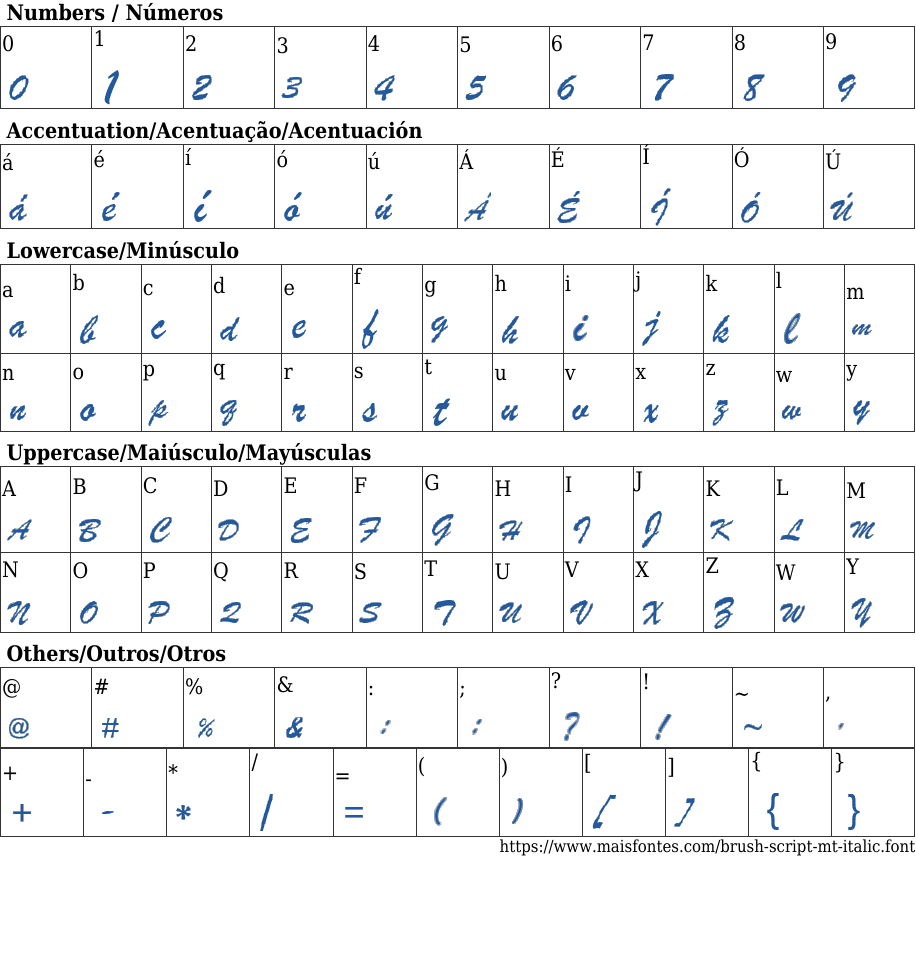
Brush Script Mt Italic Font . Brush script mt italic font. Embed brush script mt italic font to embed your selected fonts into a webpage, copy this code into the of your html document <link. Installable on pc, mac, linux, ios, and android platforms. Download brush script mt italictruetype font. Brush script mt font brush developed by robert e. Download 186,286 free fonts at ufonts.com. The brush script mt italic font has a script typography and is great for elegant invitation art. Make the art more fun because. The author of newspaper font inknew that is free for both personal and commercial uses. A script typeface with 1 style, available from adobe fonts for sync and web. Discover the free brush script mt italic font at free font download ! Brush script mt italic is a charming and elegant font that adds a touch of sophistication to any design project. Explore brush script designed by robert e.
Brush script mt italic is a charming and elegant font that adds a touch of sophistication to any design project. Download 186,286 free fonts at ufonts.com. Download brush script mt italictruetype font. Embed brush script mt italic font to embed your selected fonts into a webpage, copy this code into the of your html document <link. The author of newspaper font inknew that is free for both personal and commercial uses. Make the art more fun because. Brush script mt font brush developed by robert e. Installable on pc, mac, linux, ios, and android platforms. Explore brush script designed by robert e. Brush script mt italic font.
Brush Script Mt Italic Font Make the art more fun because. Explore brush script designed by robert e. Installable on pc, mac, linux, ios, and android platforms. Make the art more fun because. A script typeface with 1 style, available from adobe fonts for sync and web. The brush script mt italic font has a script typography and is great for elegant invitation art. Brush script mt italic font. Download brush script mt italictruetype font. Embed brush script mt italic font to embed your selected fonts into a webpage, copy this code into the of your html document <link. The author of newspaper font inknew that is free for both personal and commercial uses. Brush script mt italic is a charming and elegant font that adds a touch of sophistication to any design project. Discover the free brush script mt italic font at free font download ! Brush script mt font brush developed by robert e. Download 186,286 free fonts at ufonts.com.
Font Brush Script Mt Italic at frankenewsom blog Brush Script Mt Italic Font Explore brush script designed by robert e. Installable on pc, mac, linux, ios, and android platforms. A script typeface with 1 style, available from adobe fonts for sync and web. Download brush script mt italictruetype font. Brush script mt italic is a charming and elegant font that adds a touch of sophistication to any design project. Brush script mt italic. Brush Script Mt Italic Font.
Brush Script Handmade font (227952) Script Font Bundles Brush Script Mt Italic Font The brush script mt italic font has a script typography and is great for elegant invitation art. Make the art more fun because. Brush script mt italic font. Discover the free brush script mt italic font at free font download ! A script typeface with 1 style, available from adobe fonts for sync and web. Brush script mt font brush. Brush Script Mt Italic Font.
Brush Script MT [Rus by me] Italic шрифт Brush Script Mt Italic Font Download 186,286 free fonts at ufonts.com. Brush script mt italic is a charming and elegant font that adds a touch of sophistication to any design project. The brush script mt italic font has a script typography and is great for elegant invitation art. Embed brush script mt italic font to embed your selected fonts into a webpage, copy this code. Brush Script Mt Italic Font.
Шрифт Brush Script MT Italic (русский шрифт) Brush Script Mt Italic Font Installable on pc, mac, linux, ios, and android platforms. Embed brush script mt italic font to embed your selected fonts into a webpage, copy this code into the of your html document <link. A script typeface with 1 style, available from adobe fonts for sync and web. Brush script mt italic font. Download brush script mt italictruetype font. The brush. Brush Script Mt Italic Font.
Font Free Brush Script Mt Italic1 B S vrogue.co Brush Script Mt Italic Font The author of newspaper font inknew that is free for both personal and commercial uses. Explore brush script designed by robert e. Download brush script mt italictruetype font. A script typeface with 1 style, available from adobe fonts for sync and web. The brush script mt italic font has a script typography and is great for elegant invitation art. Brush. Brush Script Mt Italic Font.